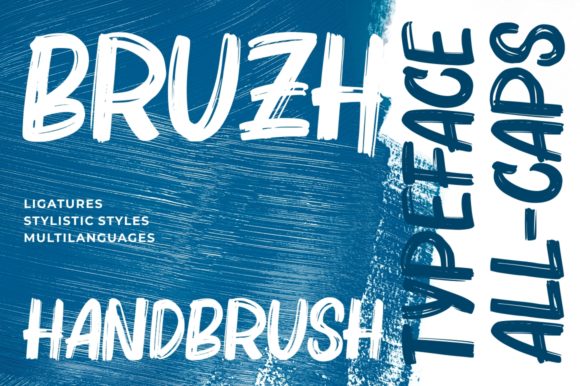
The Magic of Bruzh Font: Adding Authenticity to Your Designs
I still remember the design project that led me to discover Bruzh Font. I was working on a branding project for a local artisan market, and I needed a font that would capture the essence of handmade crafts and vintage charm. After hours of searching, I stumbled upon Bruzh Font, and it was love at first sight! ✨ The dry brush script instantly added an authentic vibe to my design, and I knew I had found the perfect fit.
An Honest Review of Bruzh Font
- ✨ Unique, hand-crafted feel that adds character to any design
- ✅ Excellent for branding, packaging, and advertising projects that require a personal touch
- ⚡️ Highly versatile and pairs well with a variety of fonts and design styles
- 🎨 Beautifully rendered strokes and imperfections that mimic real brushwork
While Bruzh Font is an amazing addition to any design project, there are a few things to keep in mind: 🤔
- ⚠️ Some letters may appear a bit cramped or uneven, which can be adjusted with kerning and tracking
- ⚠️ Limited use in very small sizes, as the font’s details may get lost
- Experiment with OpenType features, such as stylistic alternates and glyphs, to add more character to your text
The Story Behind Bruzh Font
Bruzh Font was designed with the intention of capturing the essence of handmade crafts and vintage charm. The designer, inspired by the world of artisanal crafts, aimed to create a font that would bring a sense of authenticity and personality to design projects. 💫
Q: What type of projects is Bruzh Font best suited for?
A: Bruzh Font is perfect for branding, packaging, advertising, and any design project that requires a personal touch.
Q: Is Bruzh Font difficult to read?
A: While Bruzh Font has a unique, hand-crafted feel, it’s still relatively easy to read, especially in larger sizes.